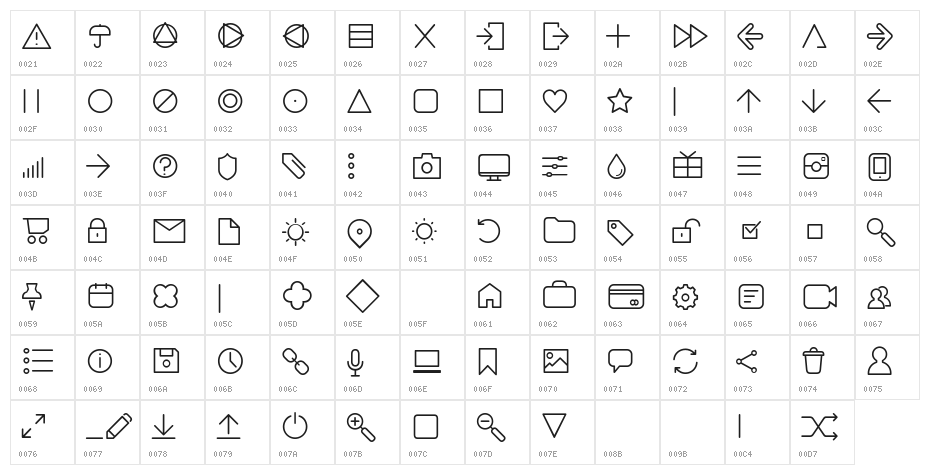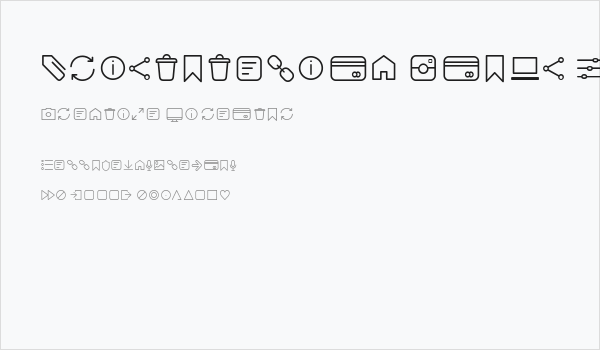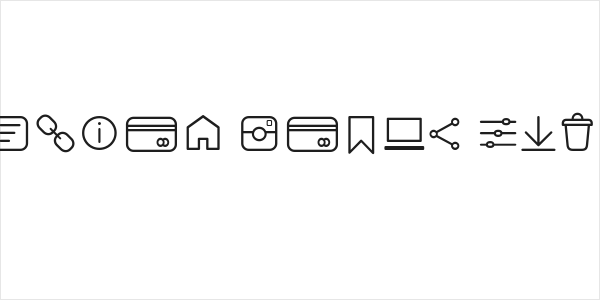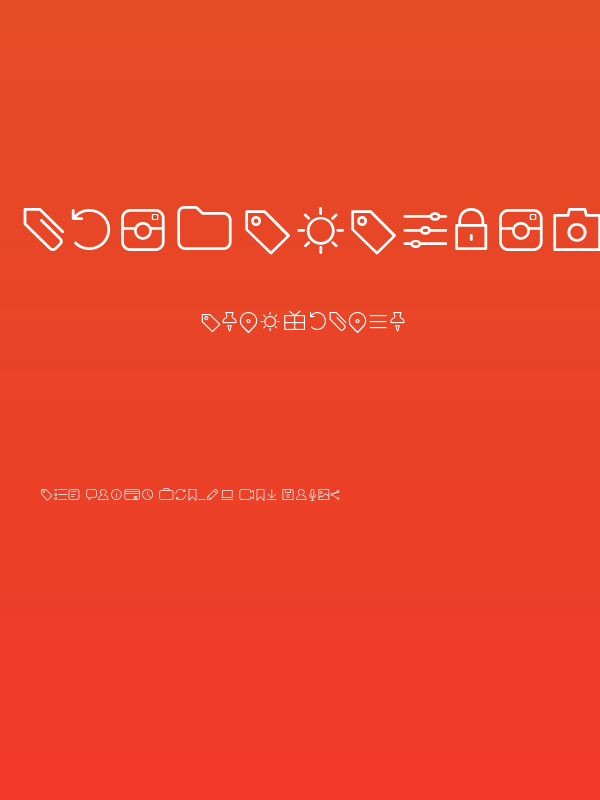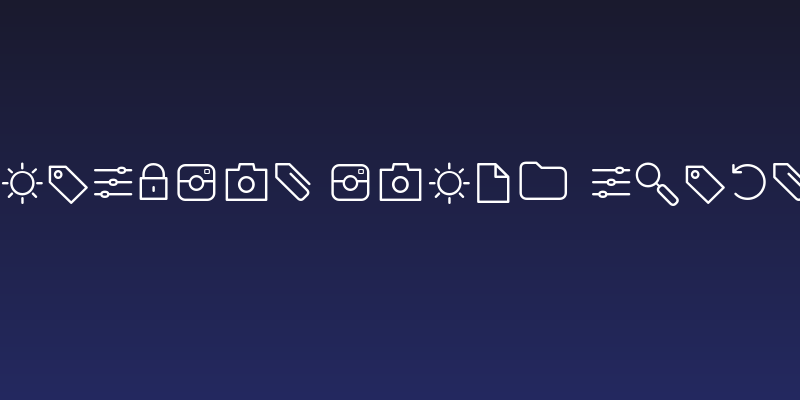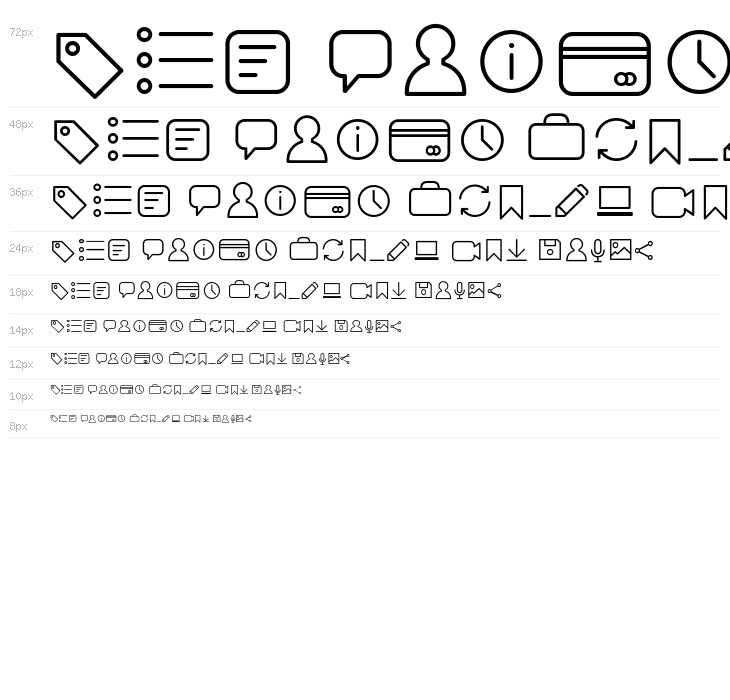
Aristotelica Icons ExtraLight Font
Aristotelica Icons ExtraLight Description
A collection of ultra-lightweight, geometric, and minimalist line icons with consistent stroke width and rounded corners, offering a clean and modern appearance suitable for digital interfaces.
| Overall Style | Modern, Minimalist |
| Use Case | Icons for interfaces, navigation, toolbars, and infographics. |
| Proposed Projects | Mobile apps, web interfaces, dashboards, UI kits, presentations. |